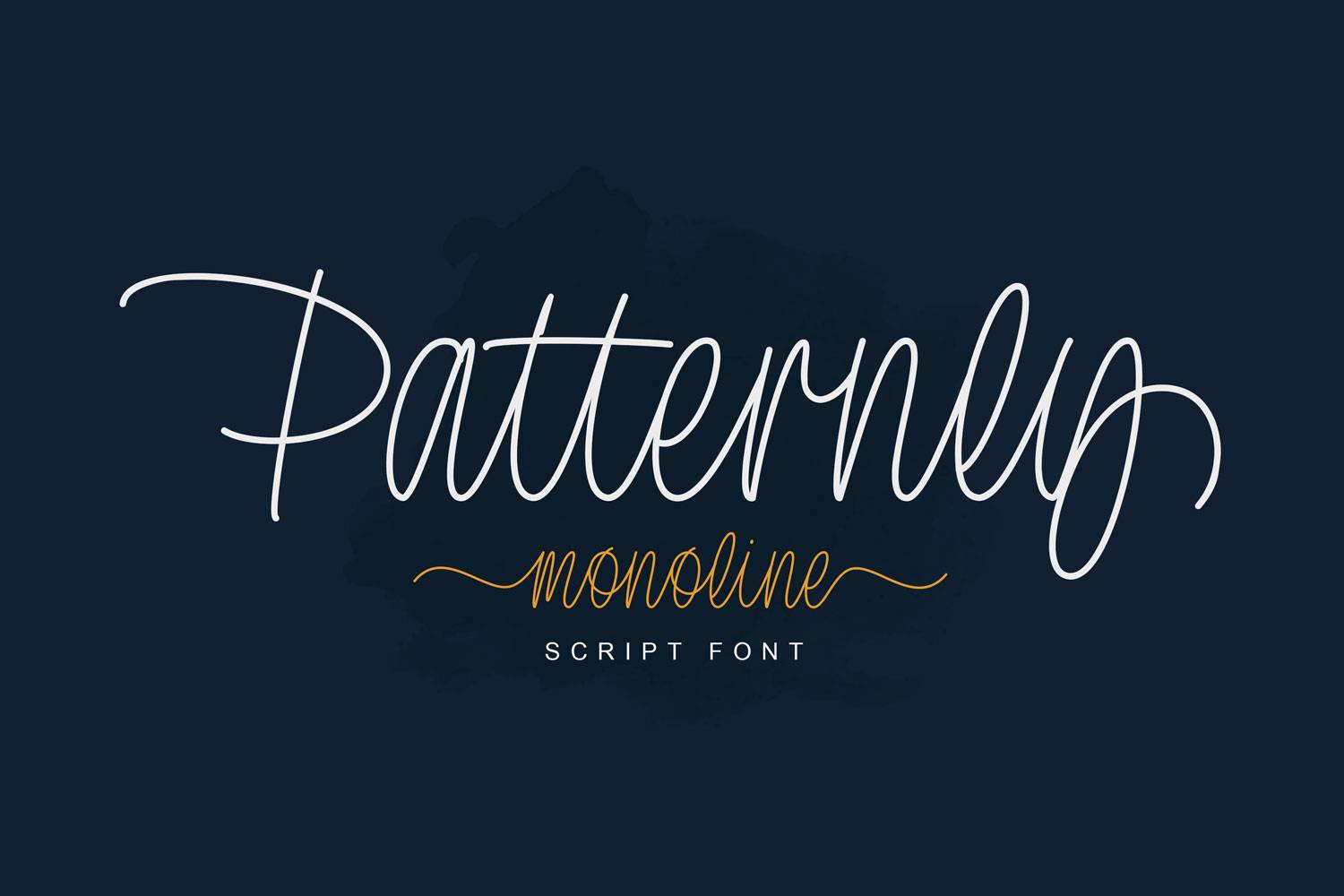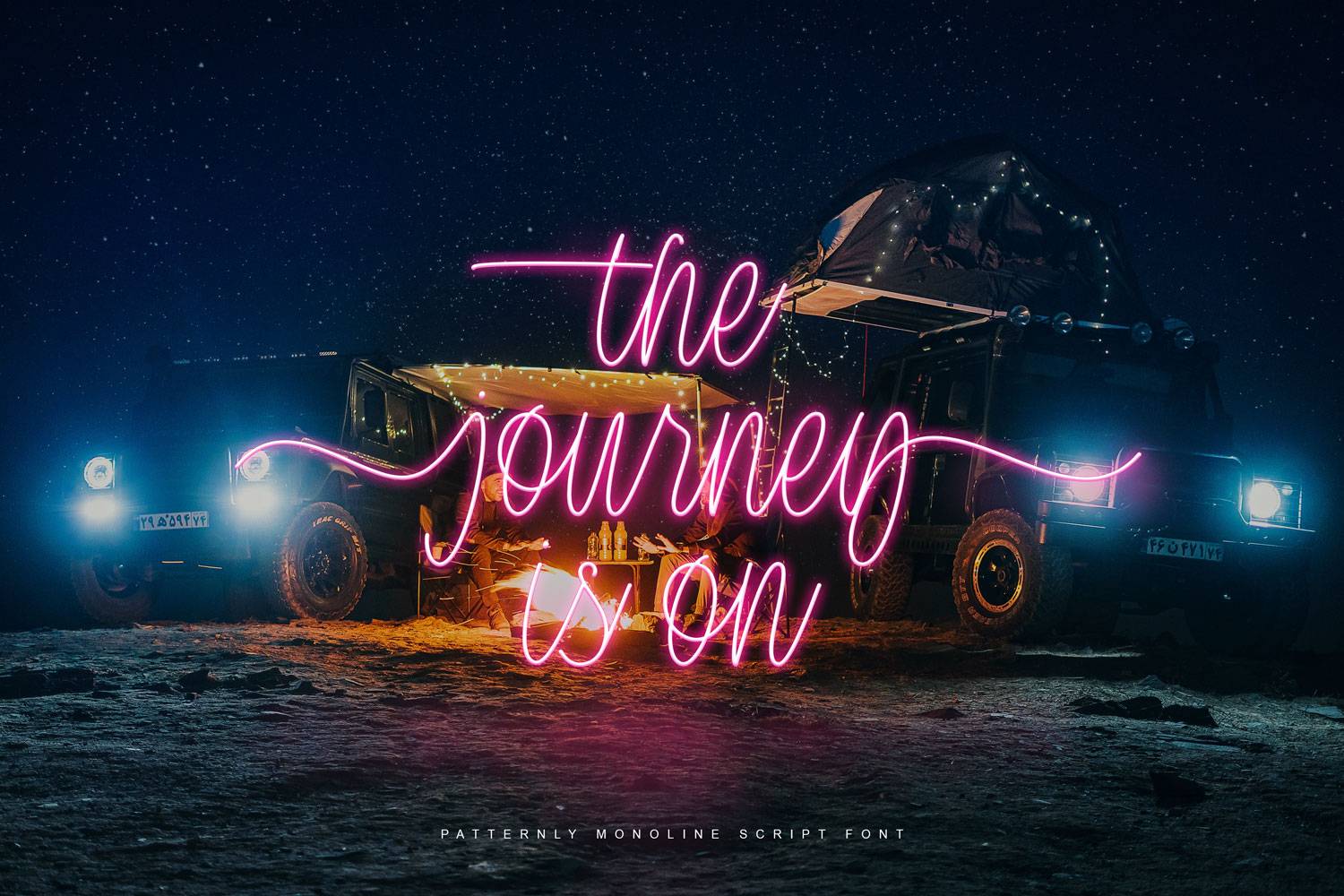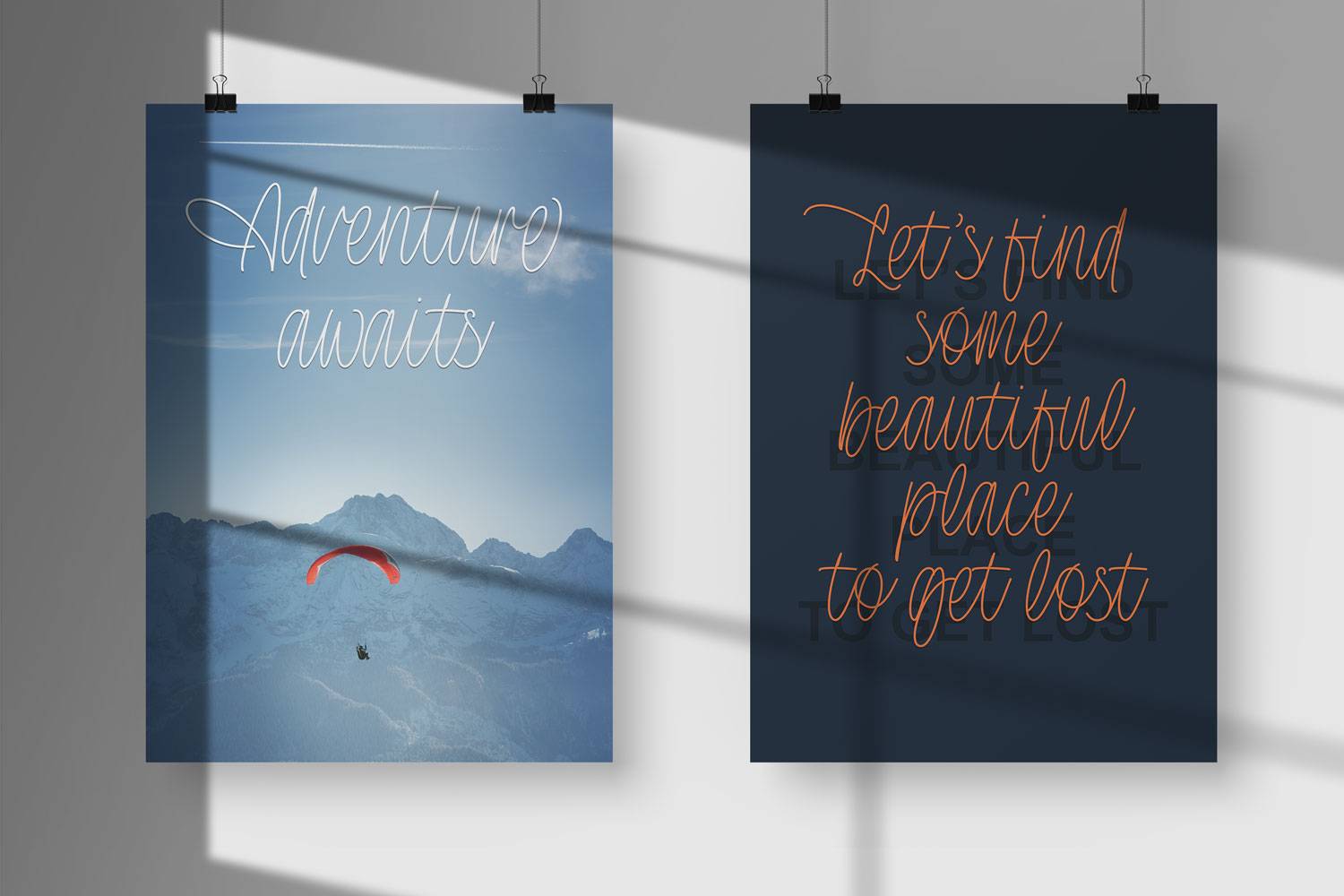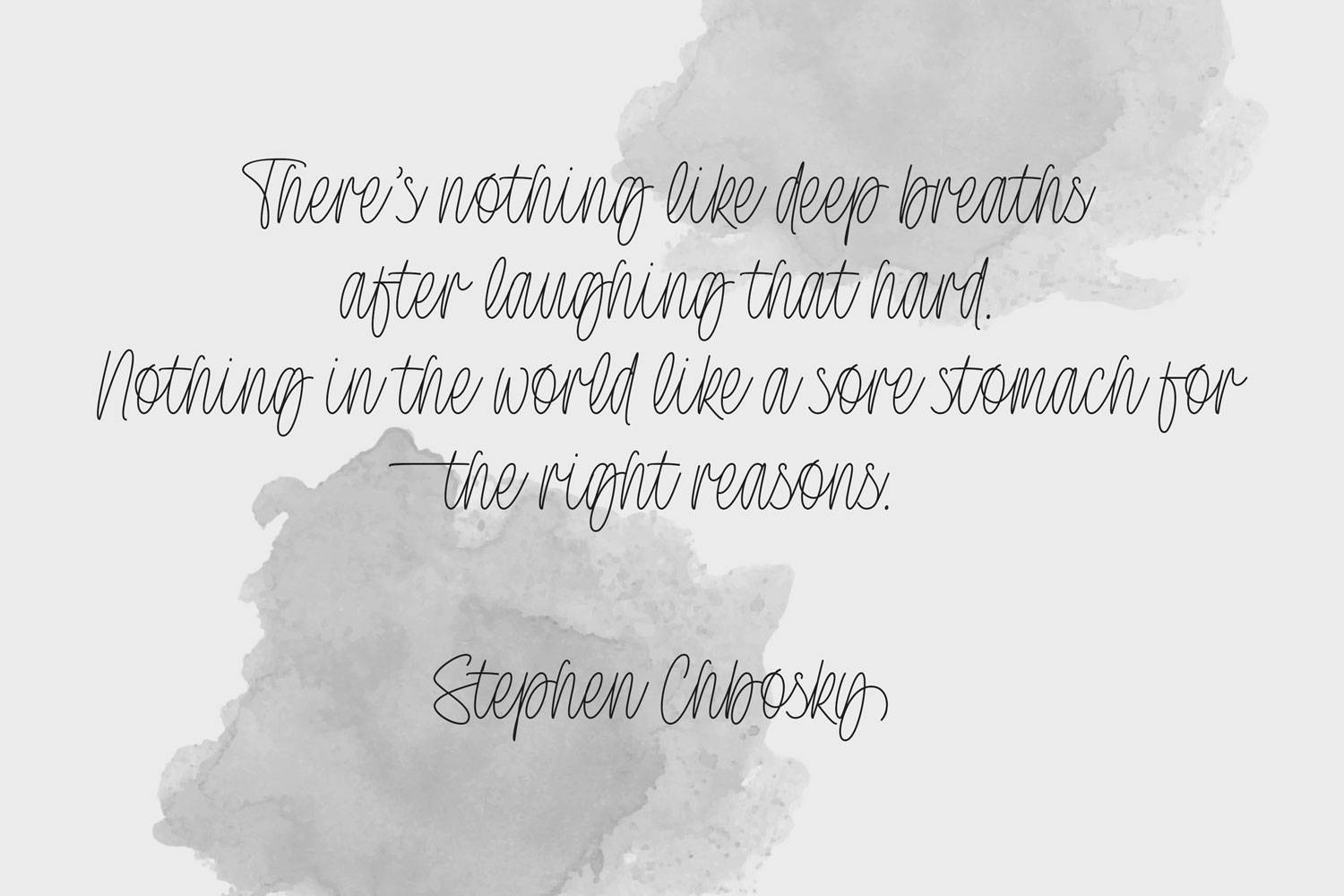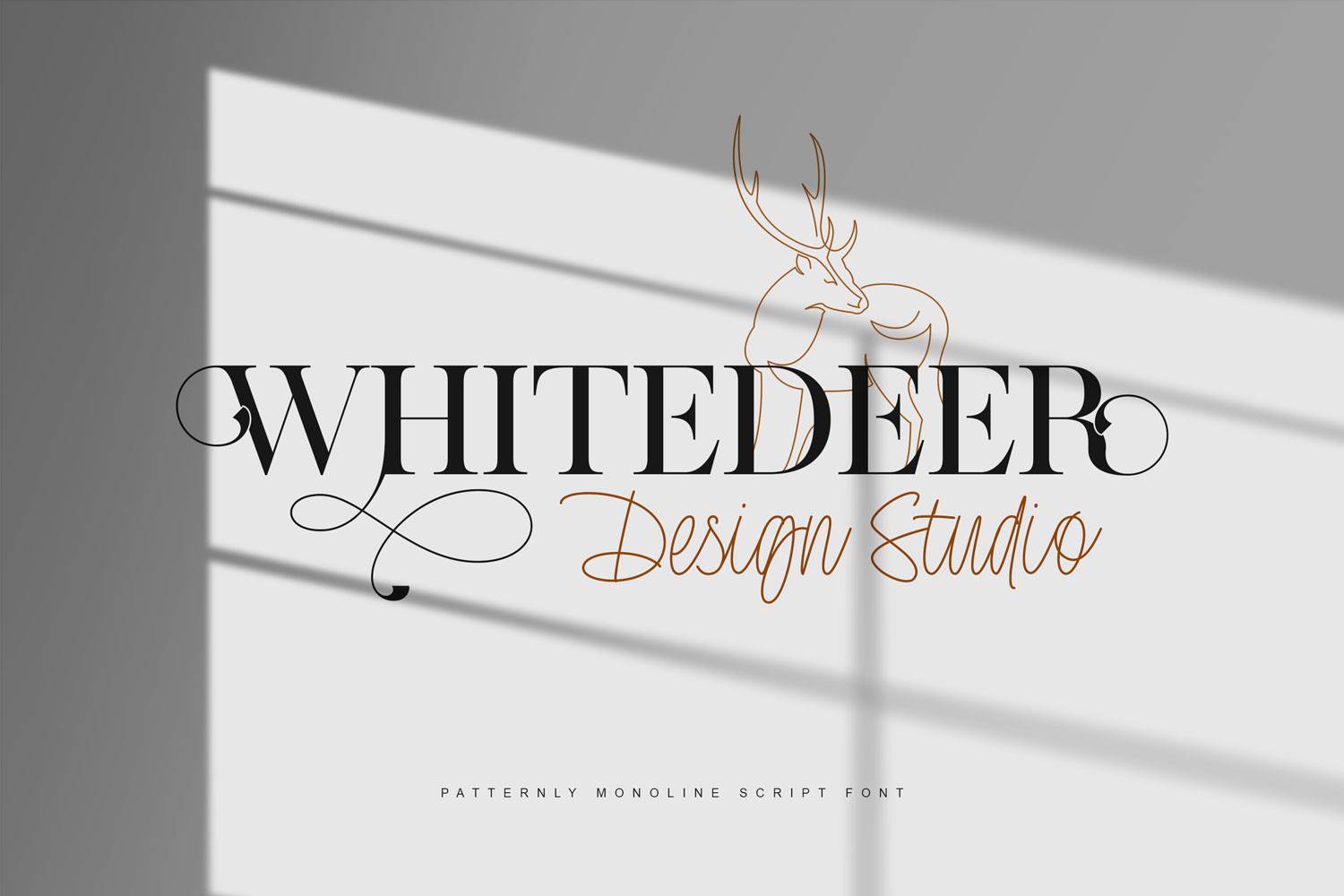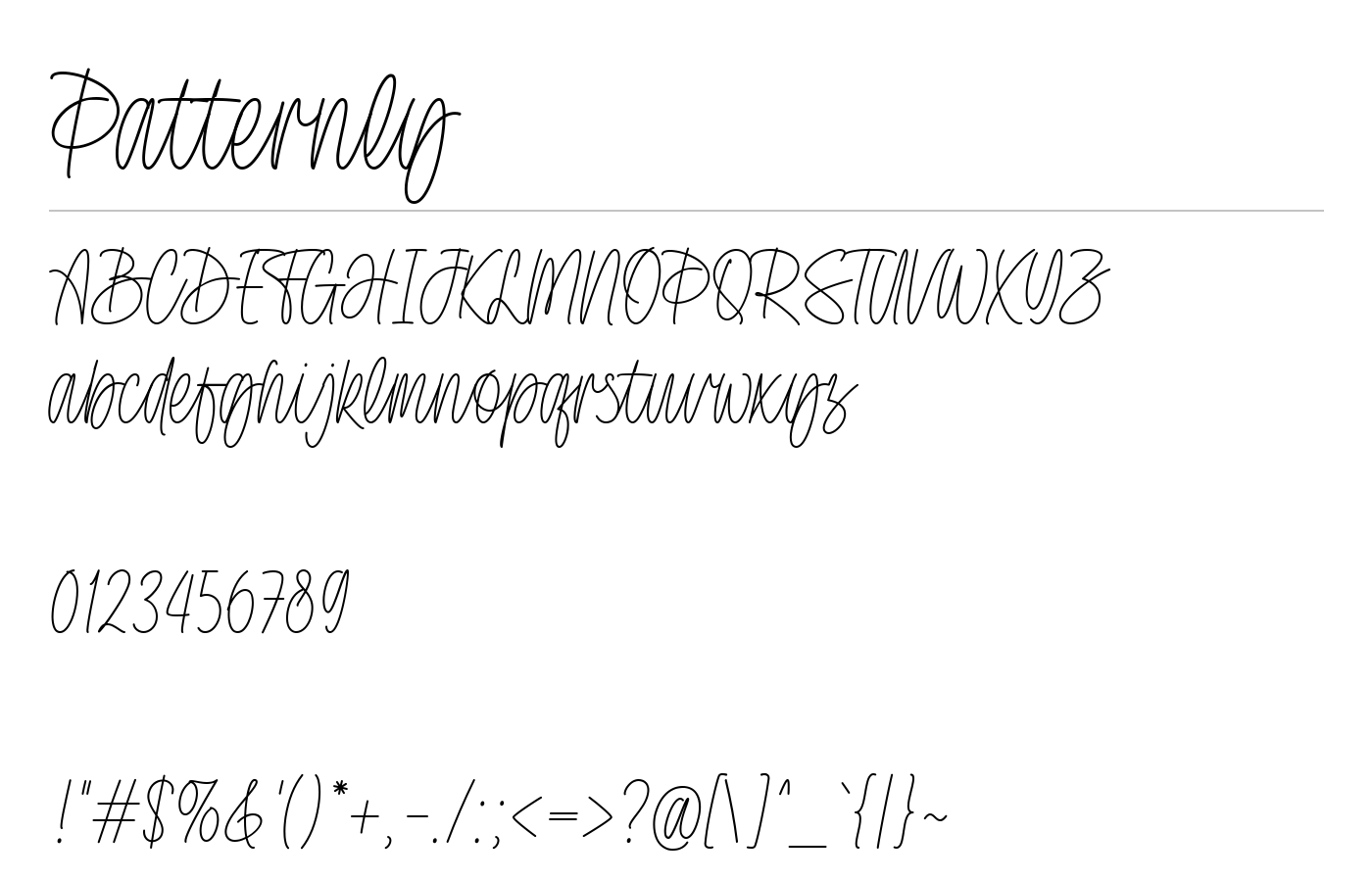
Patternly Font is a delicate, thin script typeface with an elegant, handwritten feel characterized by its tall, narrow letterforms and graceful, flowing strokes. Its airy and light appearance makes it ideal for stylish branding, invitations, and feminine designs where a modern yet personal touch is desired. This font works best in large sizes for headlines or logos, bringing a sophisticated and artistic flair to creative projects.
Patternly Font
About Patternly Font
| Designer | Lemonthe.Dwi Ahidian |